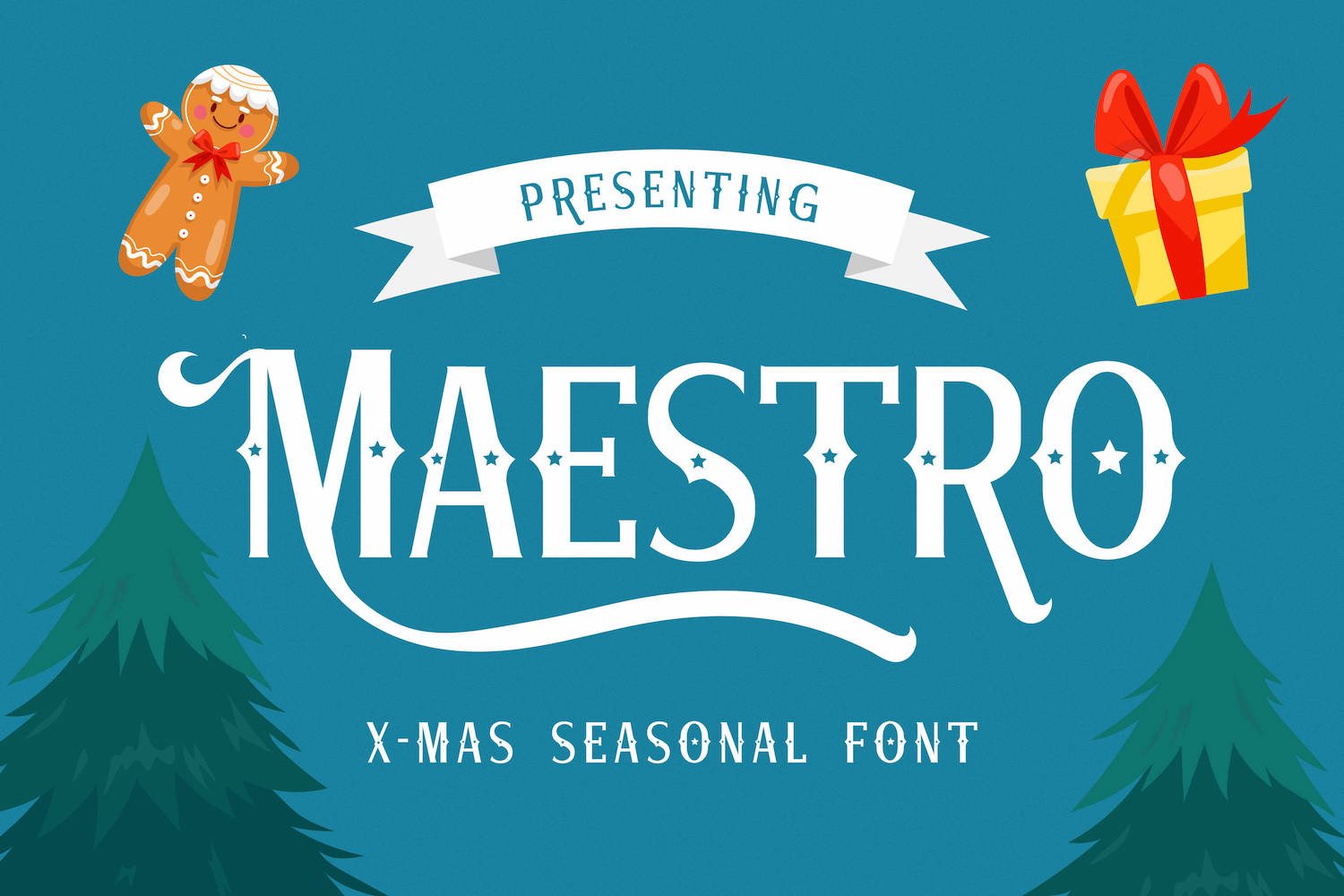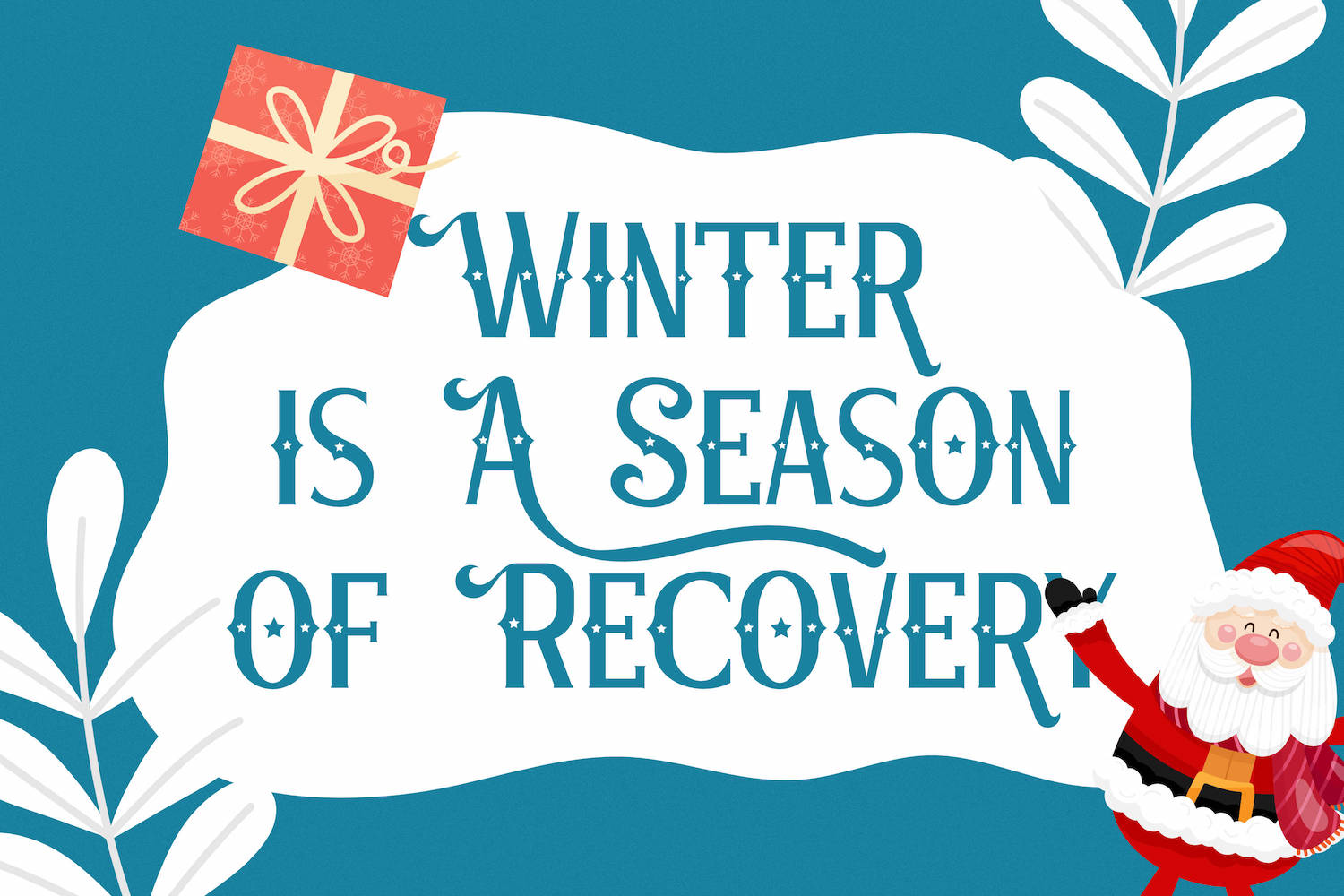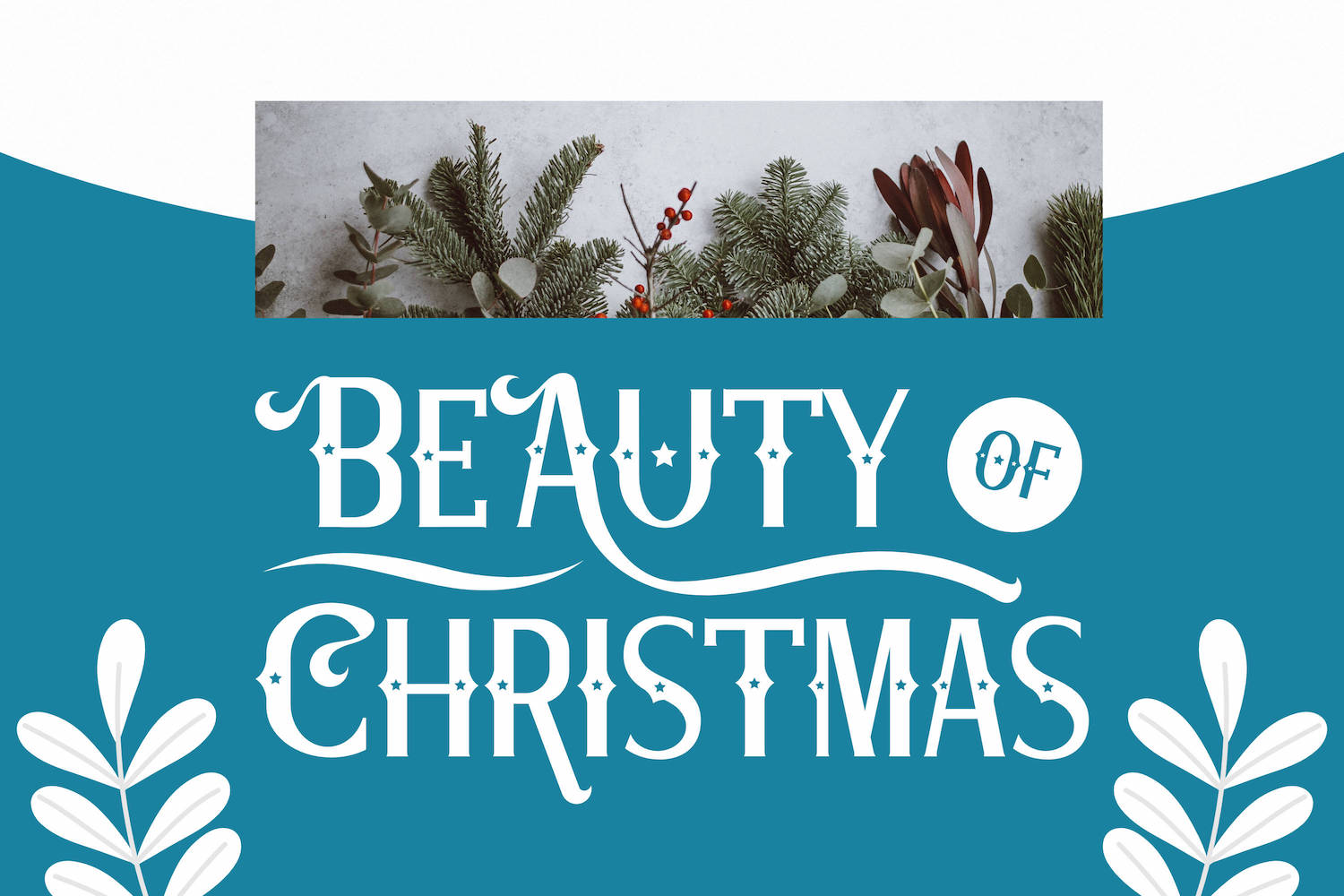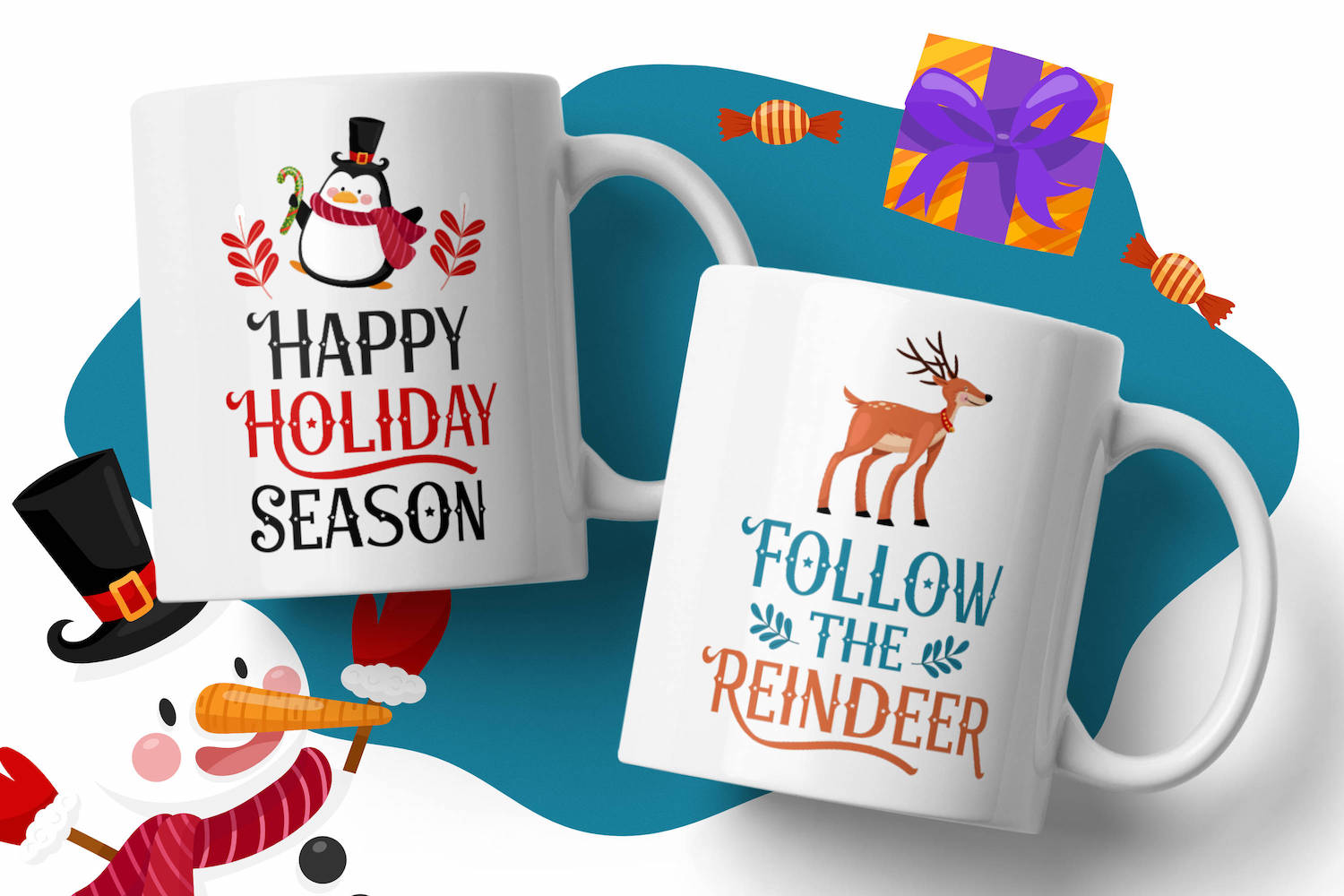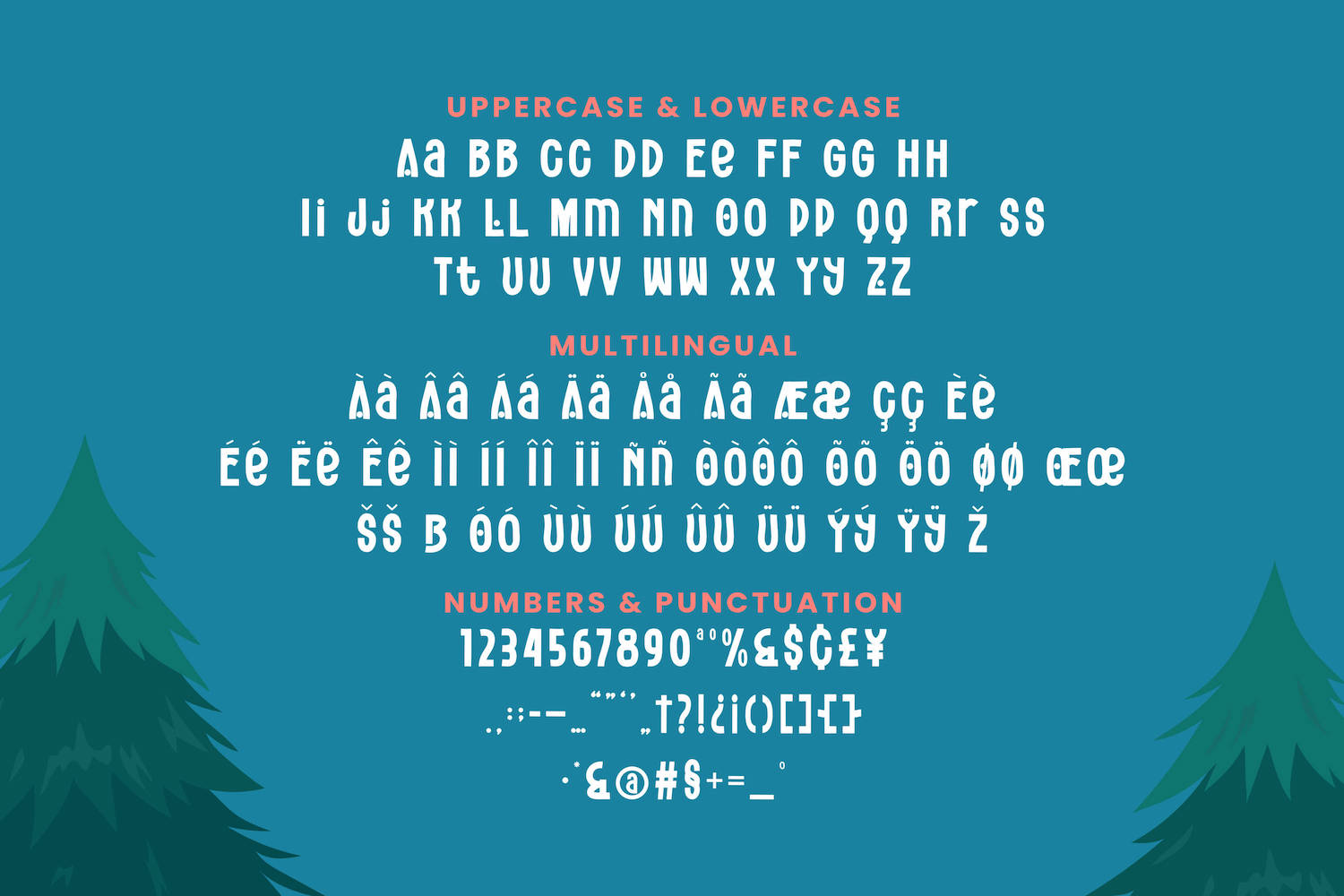
Maestro is a joyful and spirited display font crafted specially for the Christmas and winter holiday season. Its tall letterforms are adorned with whimsical star accents and playful swashes, making it perfect for festive greetings, holiday packaging, kids’ merchandise, and seasonal branding. The font captures the essence of winter magic and brings a cheerful touch to any creative design.
With its uppercase and lowercase versatility, multilingual support, and a full range of punctuation and numerals, Maestro is ready to bring charm to both print and digital formats. Whether you’re creating holiday cards, mugs, posters, or social media graphics, this font adds a sense of warmth and celebration to your project.
Maestro